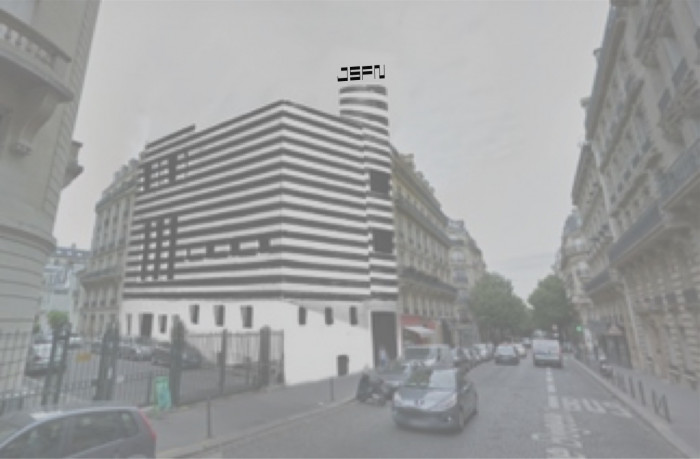
• Convieved as an extreme expression of the general method of architectural lettering (thin vertical, thick horizontal), the resultant  banding reminded me of the unbuilt house Adolph Loos designed for aclaimed actress, dancer, singer and partisan Josephine Baker, for a site in Paris (her adopted city) just before WW2.